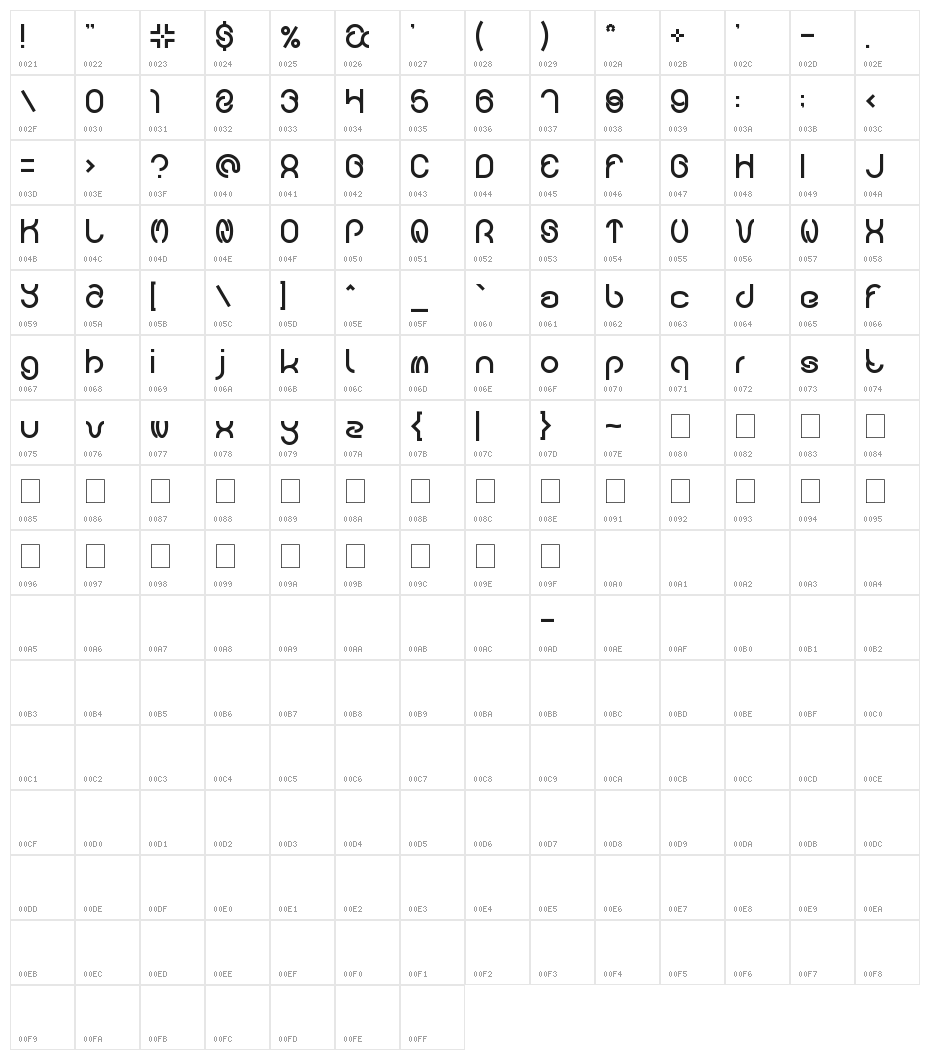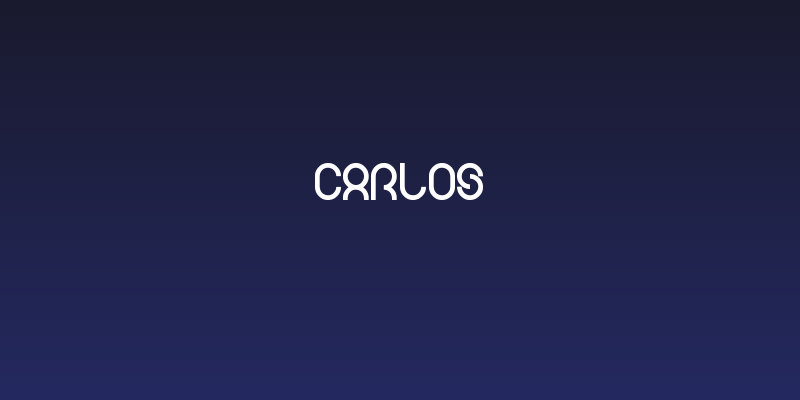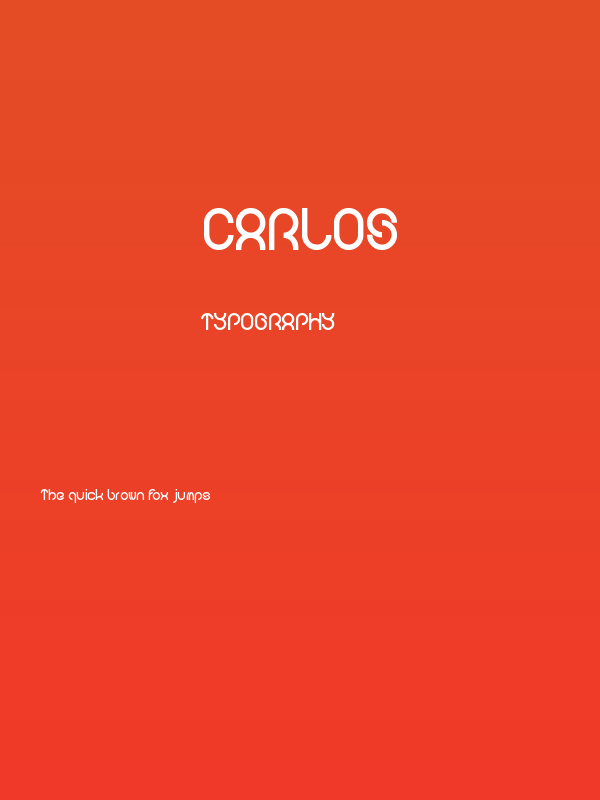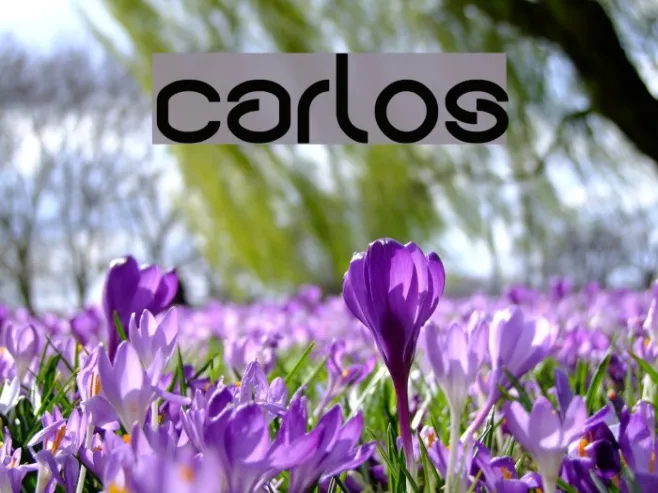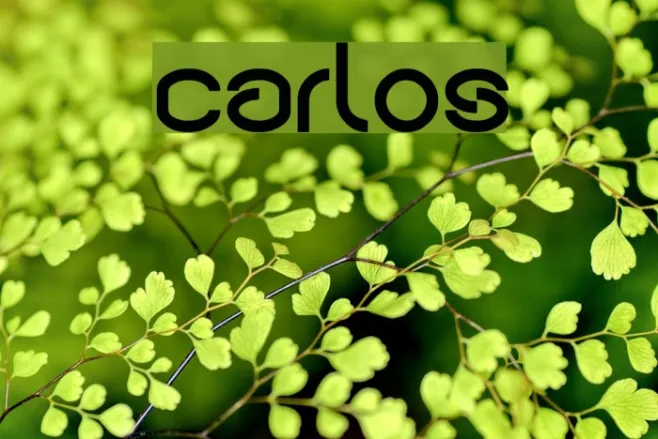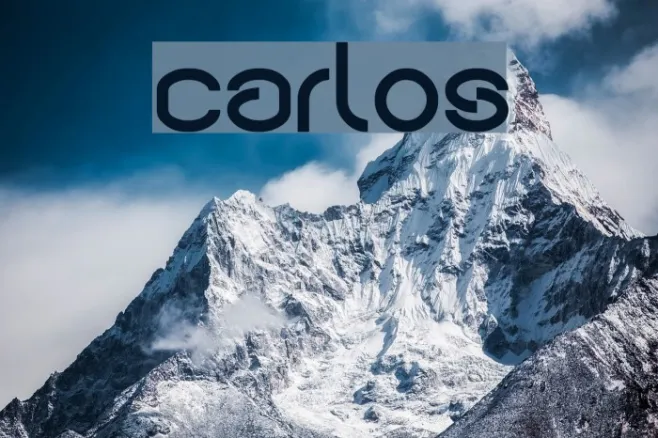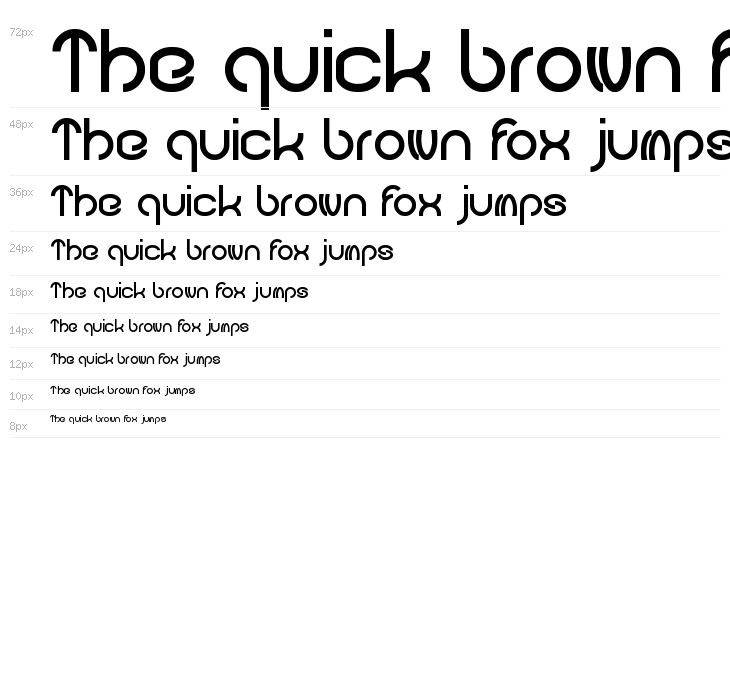
carlos Font
carlos Description
This font features a bold and modern design with a unique geometric style. The characters are composed of thick, rounded strokes that create a sense of continuity and flow. The uppercase letters exhibit a consistent height and width, while the lowercase letters maintain a similar structure with slightly more variation in form. The numerals are distinct and easily readable, following the same geometric pattern. Special characters are designed to complement the overall aesthetic, maintaining the bold and rounded appearance. This font's design is both eye-catching and functional, making it suitable for a variety of creative applications.